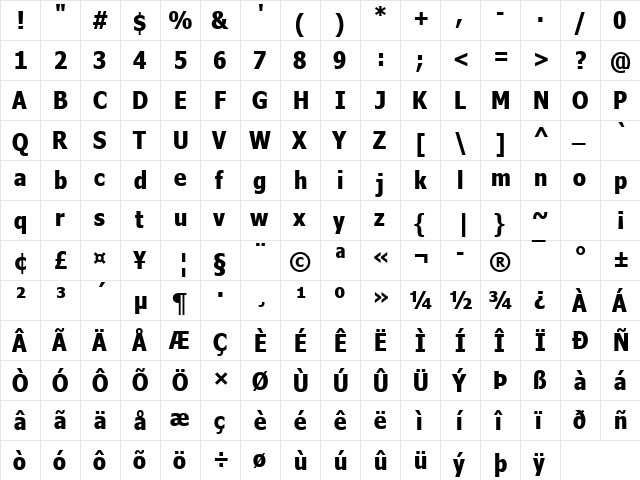
Nina Bold
Bold · Microsoft Corp. Matthew Carter ·
DesignerMatthew Carter
Design Context for Nina Typeface
Nina takes a measured approach to typography — its balanced proportions and neutral character make it a reliable workhorse for both digital and print work. Its bold stroke weight gives it real presence on the page.